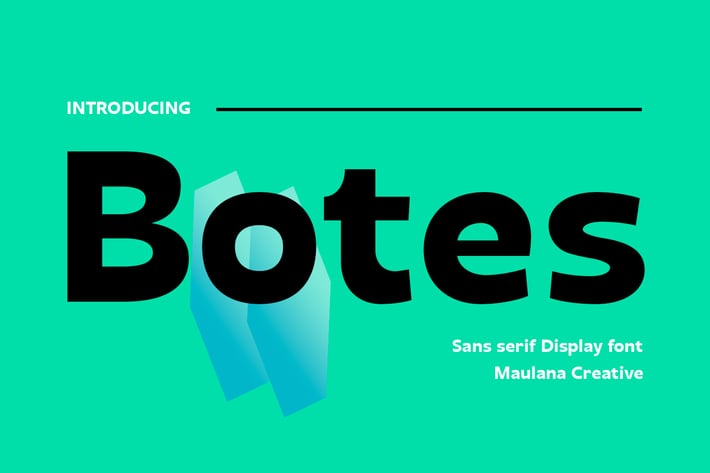
Botes Sans Font
Botes is a modern semi-geo humanist sans serif font. With medium stroke, fun character with a bit of ligatures and alternates. To give you an extra creative work. Botes font support multilingual more than 100+ language. This font is good for logo design, Social media, Movie Titles, Books Titles, a short text even a long text letter and good for your secondary text font with script or serif. Make a stunning work with Botes font.